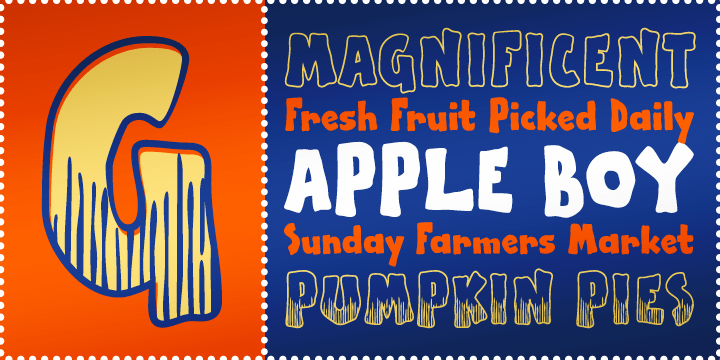
Apple Boy BTN
Font Family by Breaking The Norm
Apple Boy is a comic style typeface with a bold hand-drawn look; awkward and playful, yet strong and dominant.